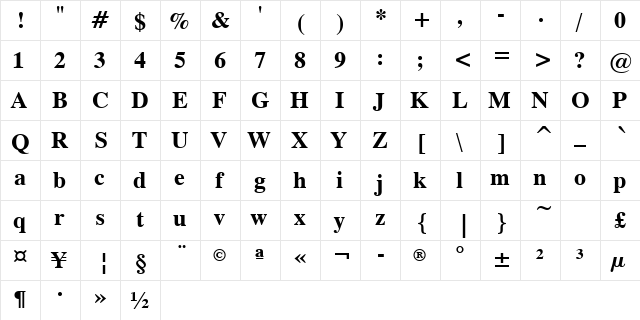
Dutch801Greek BT Bold Font Preview
Dutch801Greek BT Bold
Design Context for Dutch801Greek BT Typeface
Dutch801Greek BT is a composed and adaptable typeface that performs quietly and consistently across a wide range of design contexts. Its bold stroke weight gives it real presence on the page.